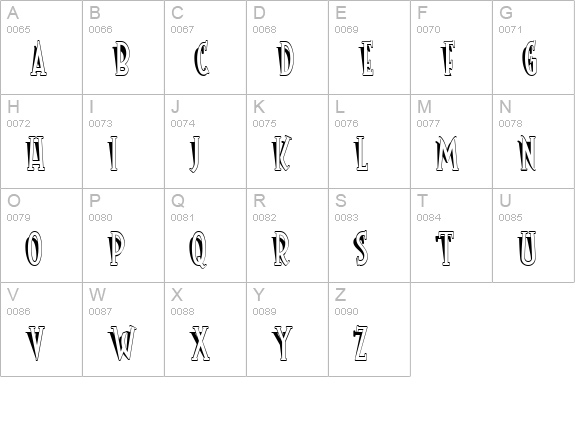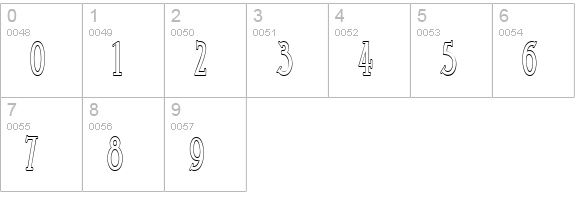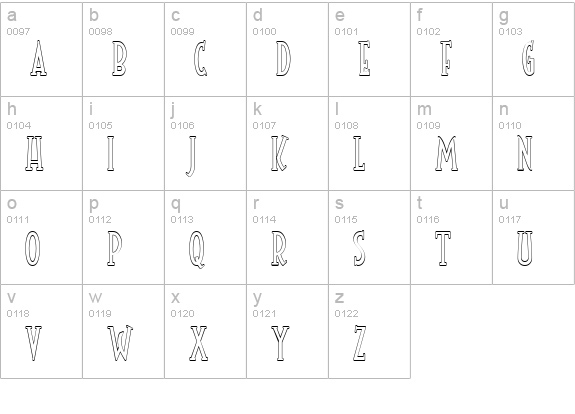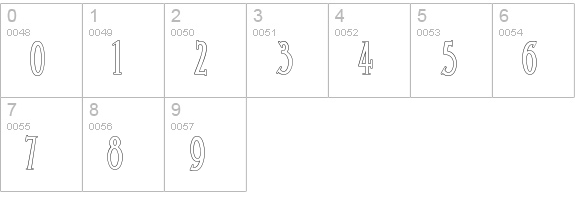
Toonerville NF font is a whimsical and playful typeface that embodies the spirit of classic cartoons. With its quirky and exaggerated letterforms, this font is perfect for adding a touch of fun to any design project. Whether you're creating a children's book, a comic strip, or a poster for a lighthearted event, Toonerville NF font will bring your words to life with its energetic and animated style. But what sets Toonerville NF font apart is that it is not only delightful, but also free! Yes, you read that right. This fantastic font is freely available to download at FontsMarket.com. Now, you can add a dash of charm to your designs without breaking the bank. Toonerville NF font offers a wide range of characters, including uppercase and lowercase letters, numbers, and punctuation marks. Each character has been carefully crafted to capture the essence of classic cartoon typography. From the exaggerated curves to the playful serifs, every detail of this font has been designed with love and care. Whether you're a professional designer or a hobbyist, Toonerville NF font is a must-have in your font collection. It's versatile, charming, and best of all, free! So why wait? Head over to FontsMarket.com and download Toonerville NF font today. Let your creativity run wild and watch as your designs come to life with this delightful and whimsical typeface.